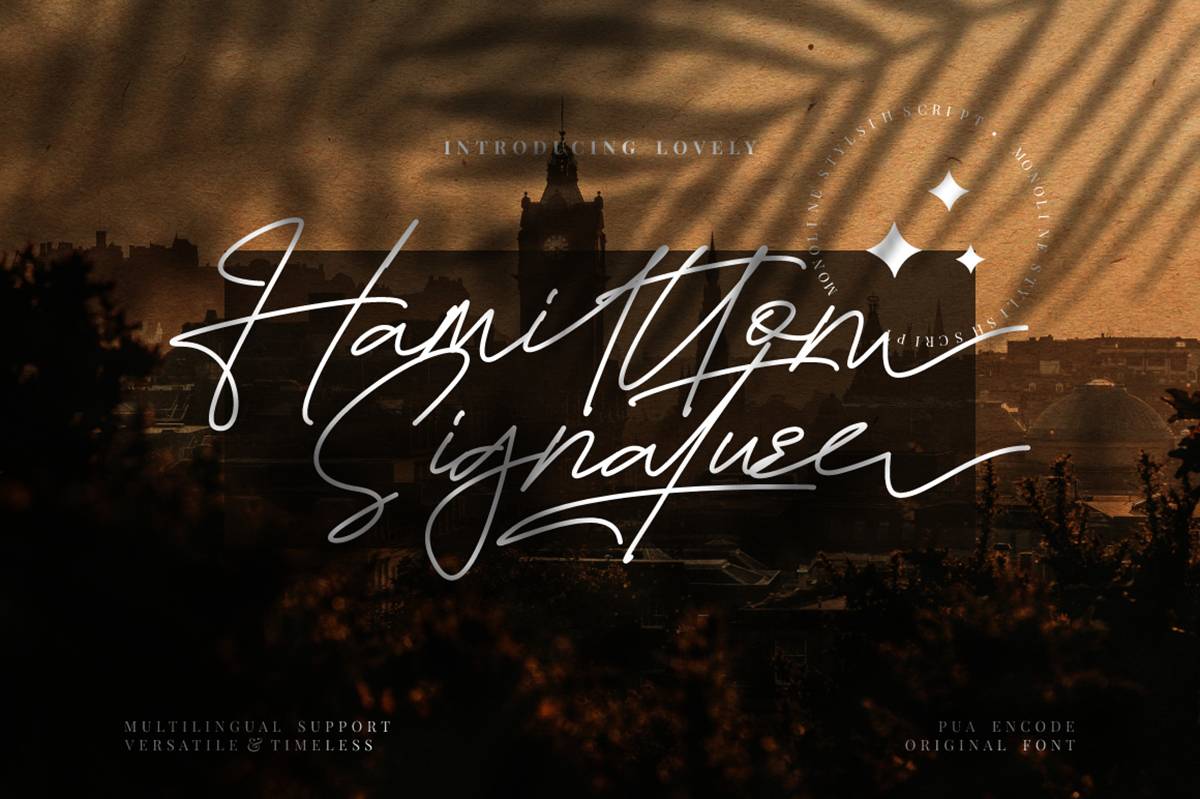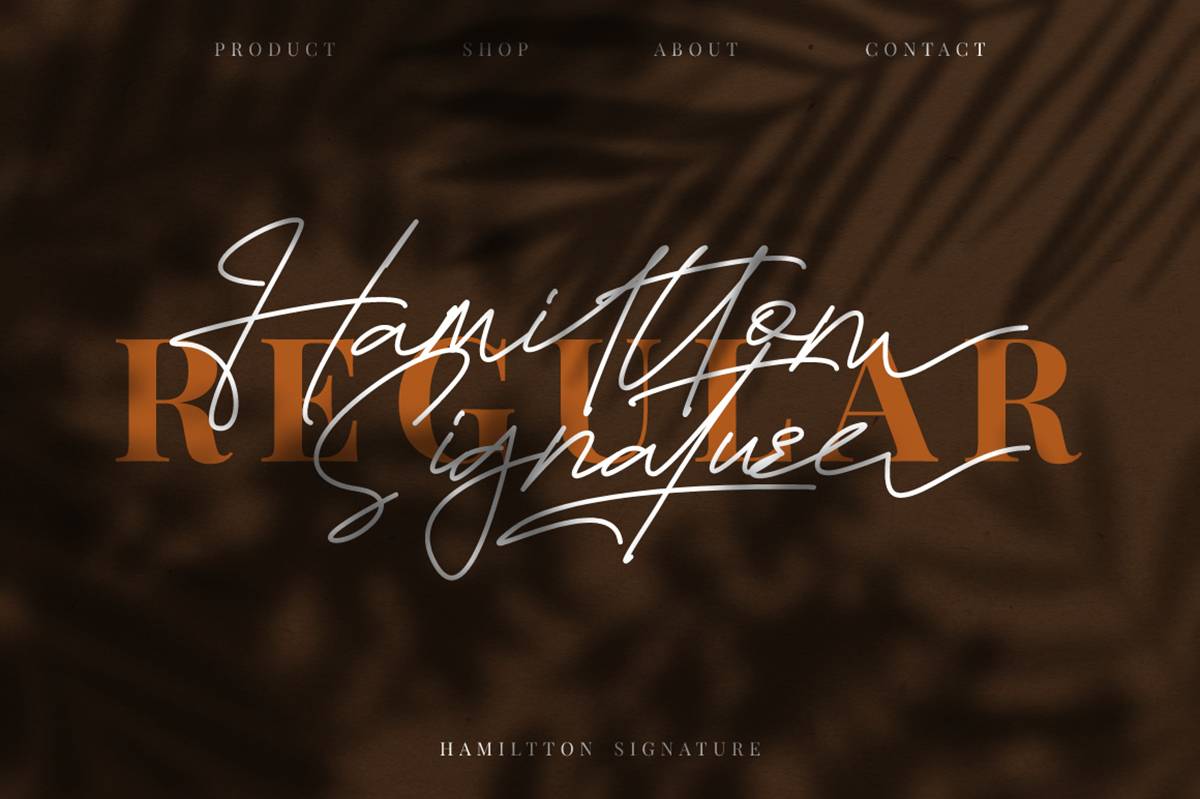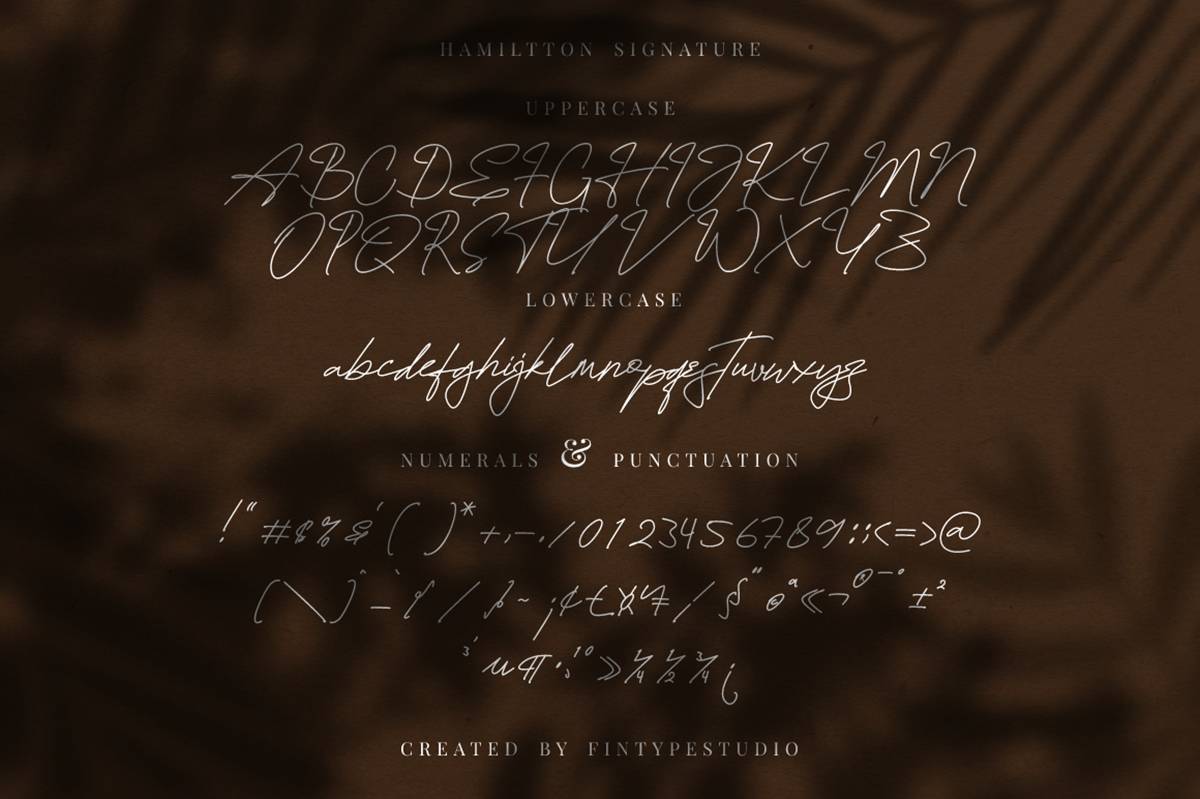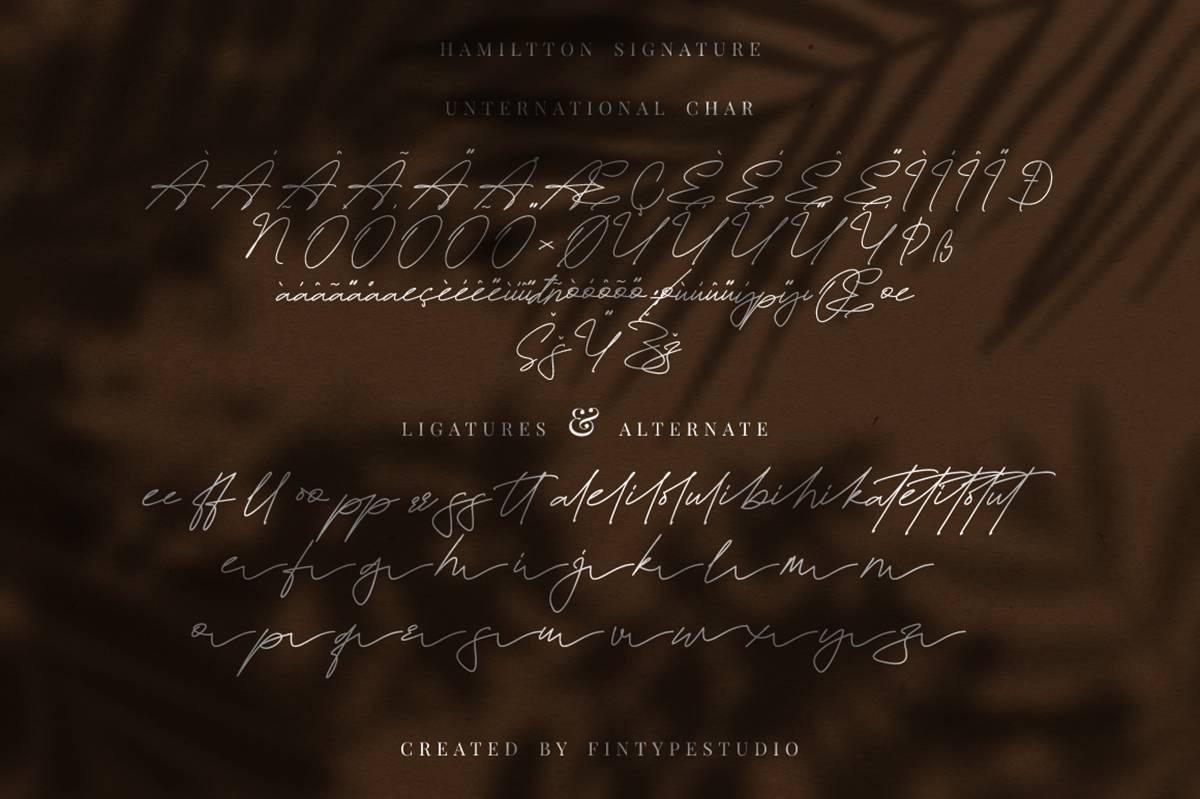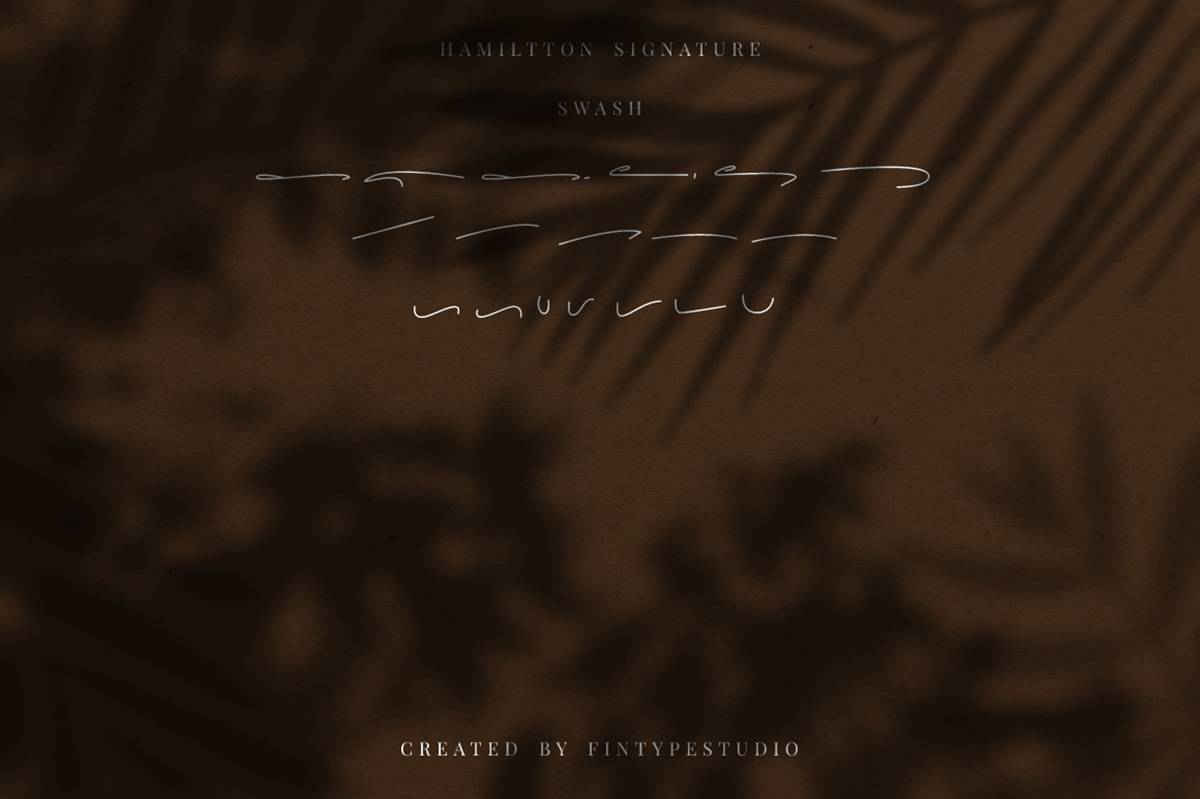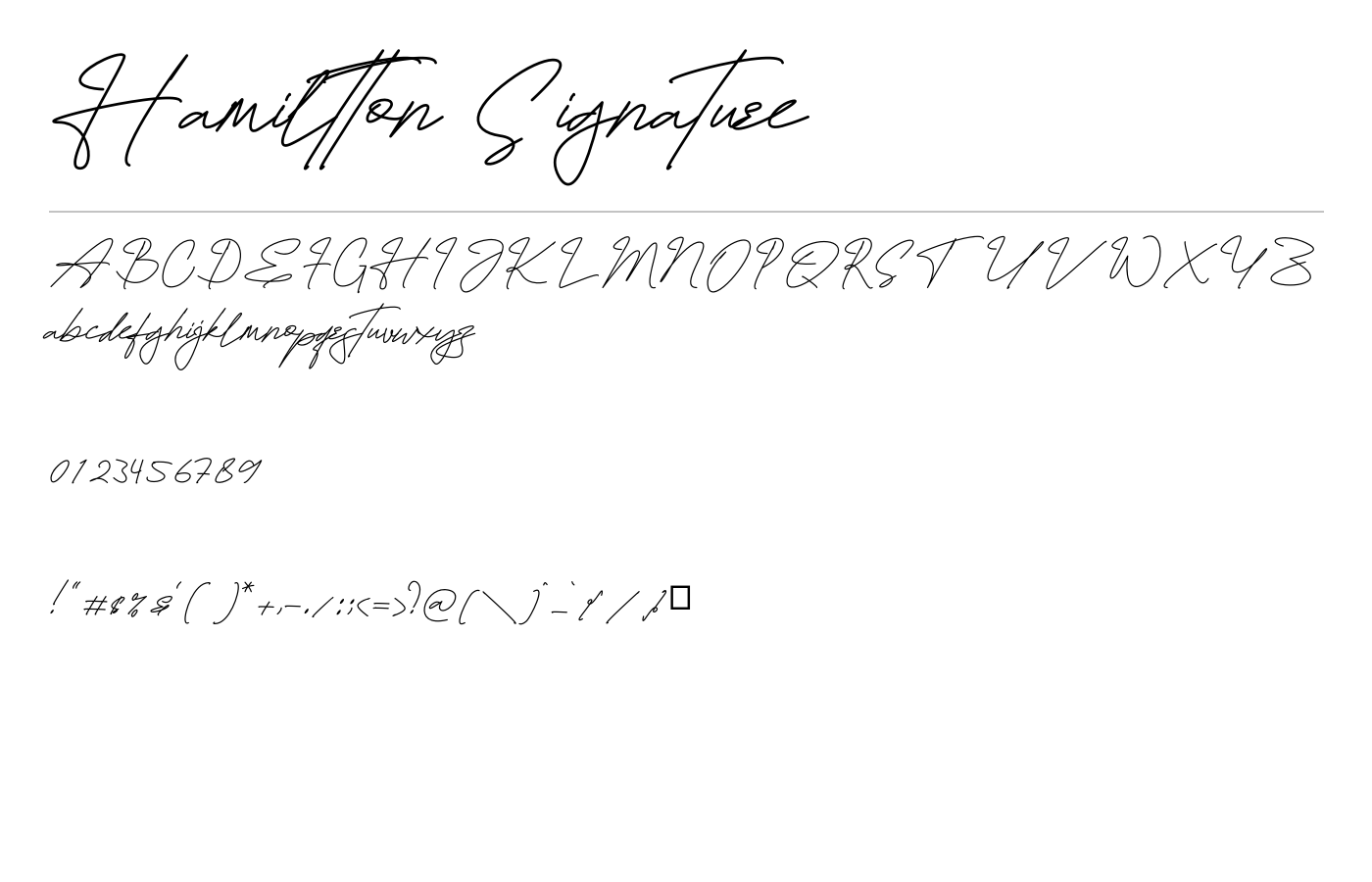
Hamilton Signature Font is a delicate and elegant script font that mimics natural handwritten signatures with its thin, flowing strokes and refined loops. Its light weight and airy spacing give it a sophisticated, personal touch, making it ideal for branding, invitations, and other designs that need a graceful, intimate feel. This font works beautifully in logos and headlines where a stylish, handwritten elegance is desired.
Hamiltton Signature Font
About Hamiltton Signature Font
| Font family | Hamiltton Signature Font |
| Designer | FinTypeStudio |